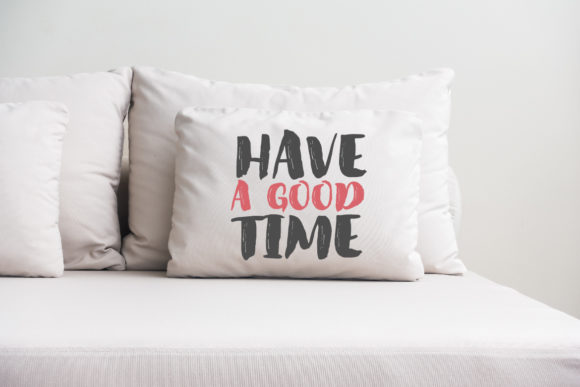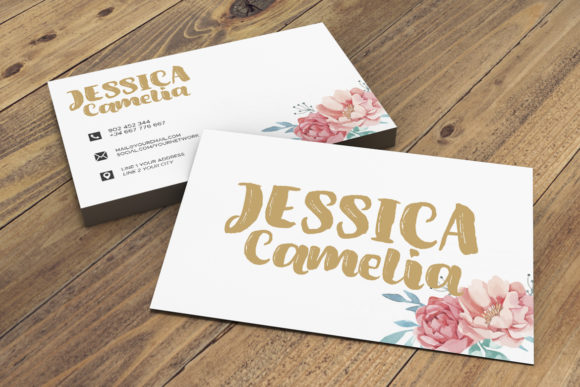
HomeScript FontsAmel Font Script Fonts Amel Font FacebookXPinterestWhatsApp Amel Font Poster 2 Amel Font Poster 3 About Amel Font Amel is a font inspired by handwriting. It delivers an equally fancy and cute font experience! DOWNLOAD NOW People also explored Winter Girl Font Charlotte Veronica Font Hello August Font Crayon Works Lady Vittoria Font Clear Sans Guys Army Bella Canvas 3001 Mockup Shirt Rhinestone Font Katislen Font 347 0 TagsAmel Font Previous articleCream Peach FontNext articleBeatley Font LEAVE A REPLY Cancel reply Comment: Please enter your comment! Name:* Please enter your name here Email:* You have entered an incorrect email address! Please enter your email address here Website: Save my name, email, and website in this browser for the next time I comment. Personal Use Free Trunk Shaped Personal Use Free Read more about this font Abberancy Personal Use Free Read more about this font Yumail Personal Use Free Read more about this font Baveuse Personal Use Free Read more about this font BLOG Exploring Font Trends Shaping Communication in the Digital Era Fonts, like all design elements, are subject to trends. They play a crucial role in communicating a brand's personality,... Transform Your Website: Elevate Your Typography with 7 Best Web Font Generators How to Cut Any Font on Cricut: Convert a Font to SVG (Free) Where to Buy American Fonts Online in 2024